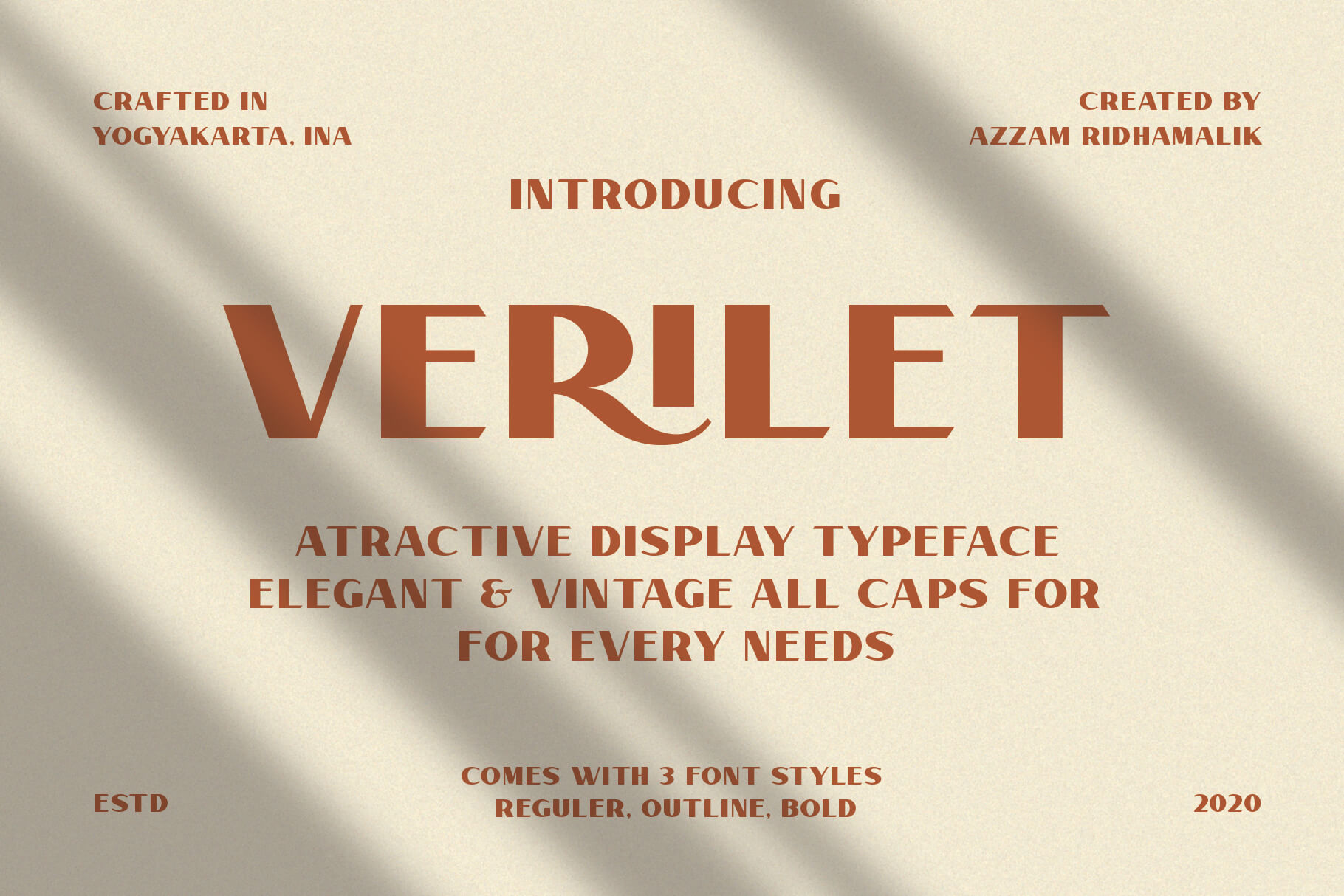
- Verilet – Elegant Sans Serif Font
Verilet Regular
Verilet Outline
Verilet Bold
Introducing Verilet, an elegant and semi-vintage display typeface that looks stunning in just about every context. Very suitable as to make a design choice such as logos, branding, magazines, headlines, websites, packaging, wedding cards and more creative project! All-caps characters, with over 400 glyphs it also has a lot of alternative characters. It looks really cool when elegant meet vintage to any piece.
Features:
- All Capital, Numbers, Punctuation
- Ligatures
- Opentype Feature
- Extended Latin
- Multilanguage